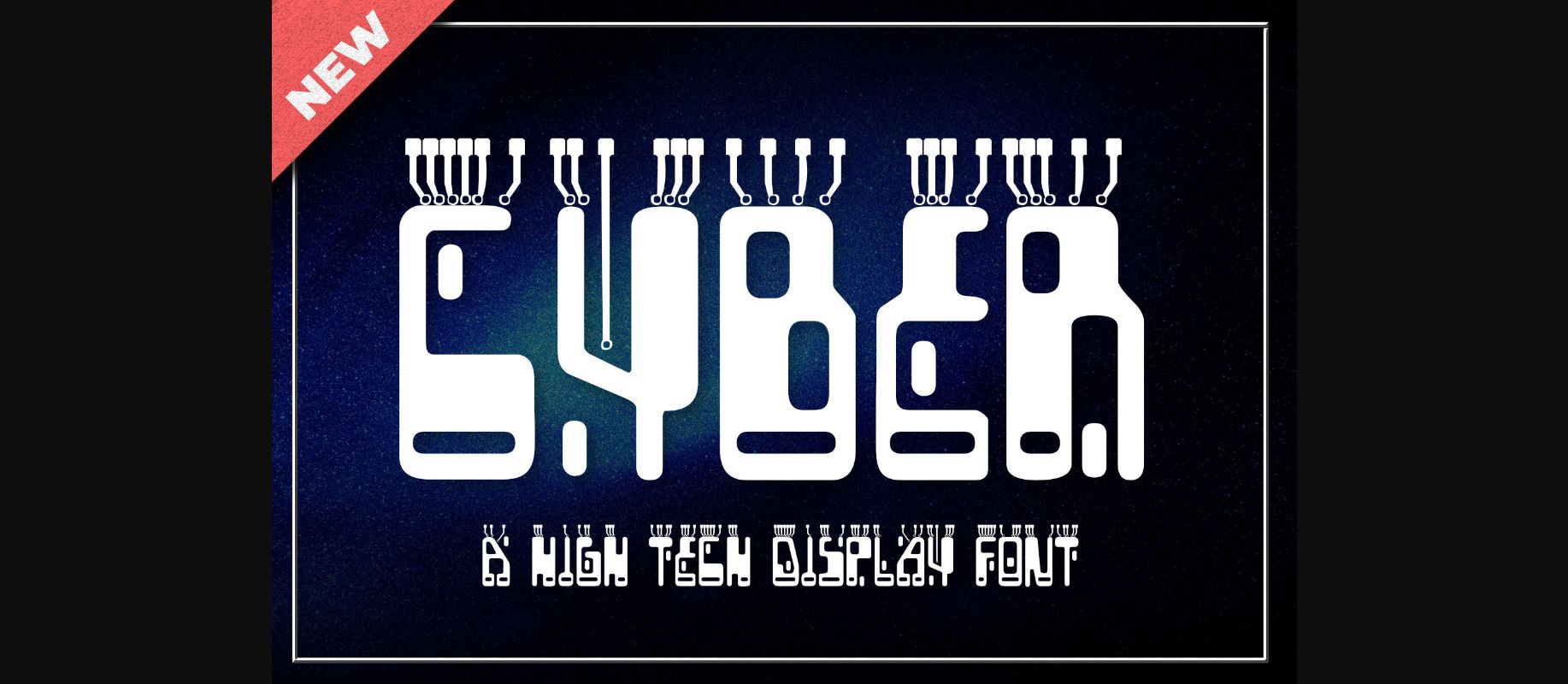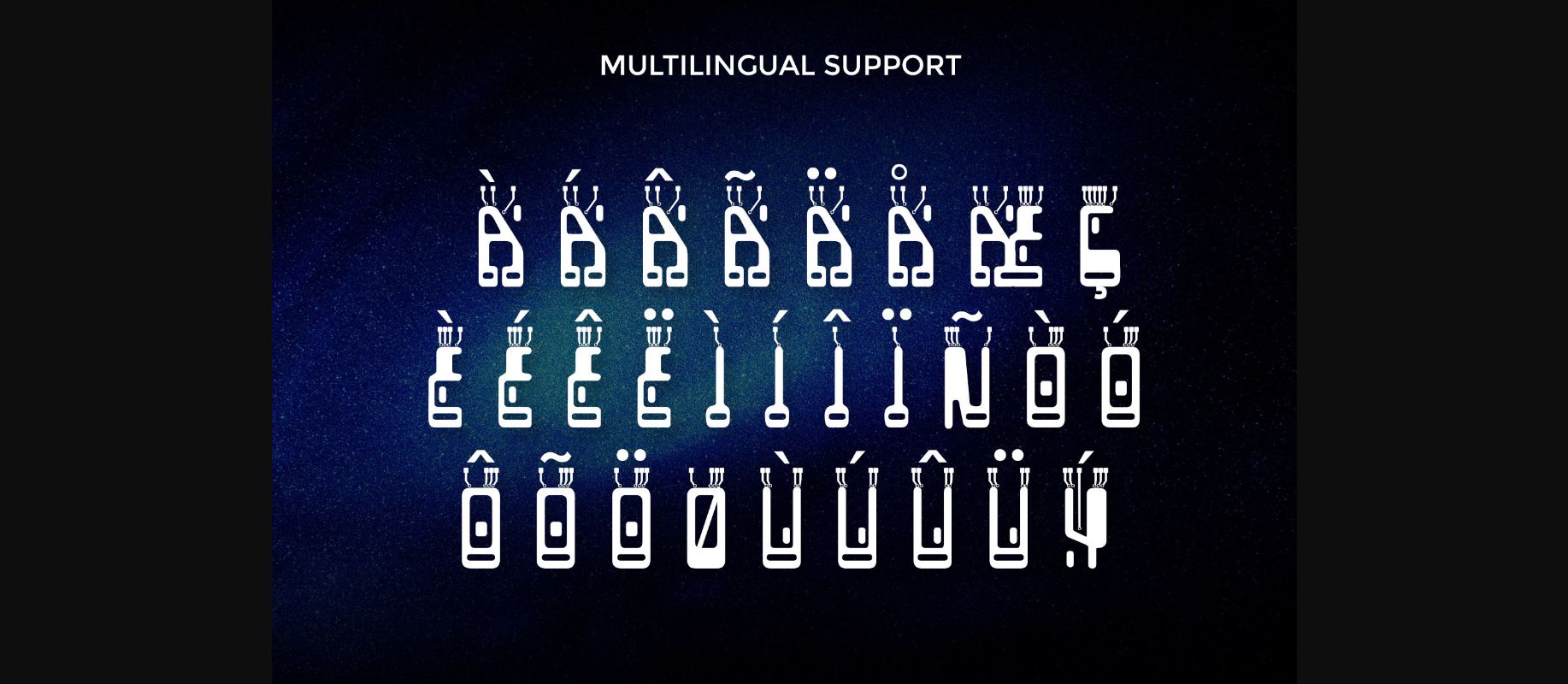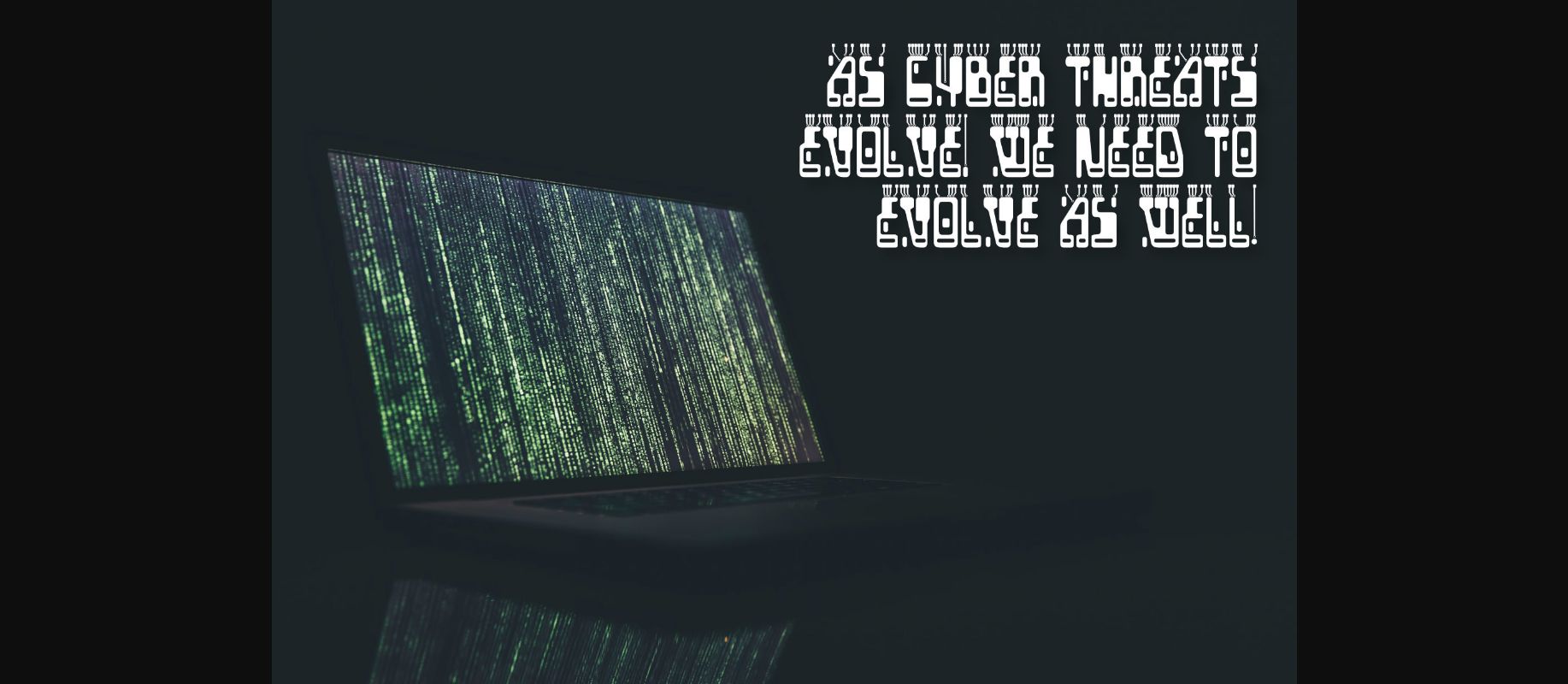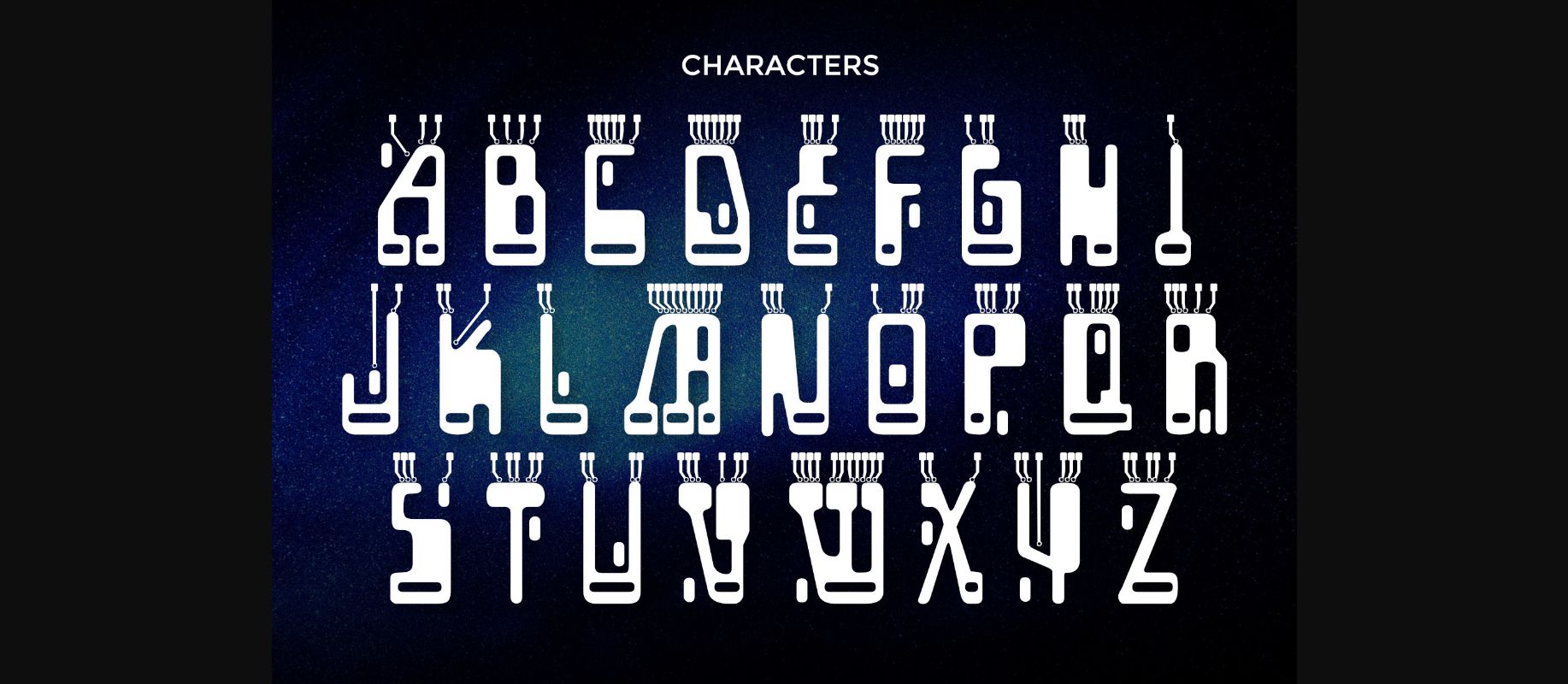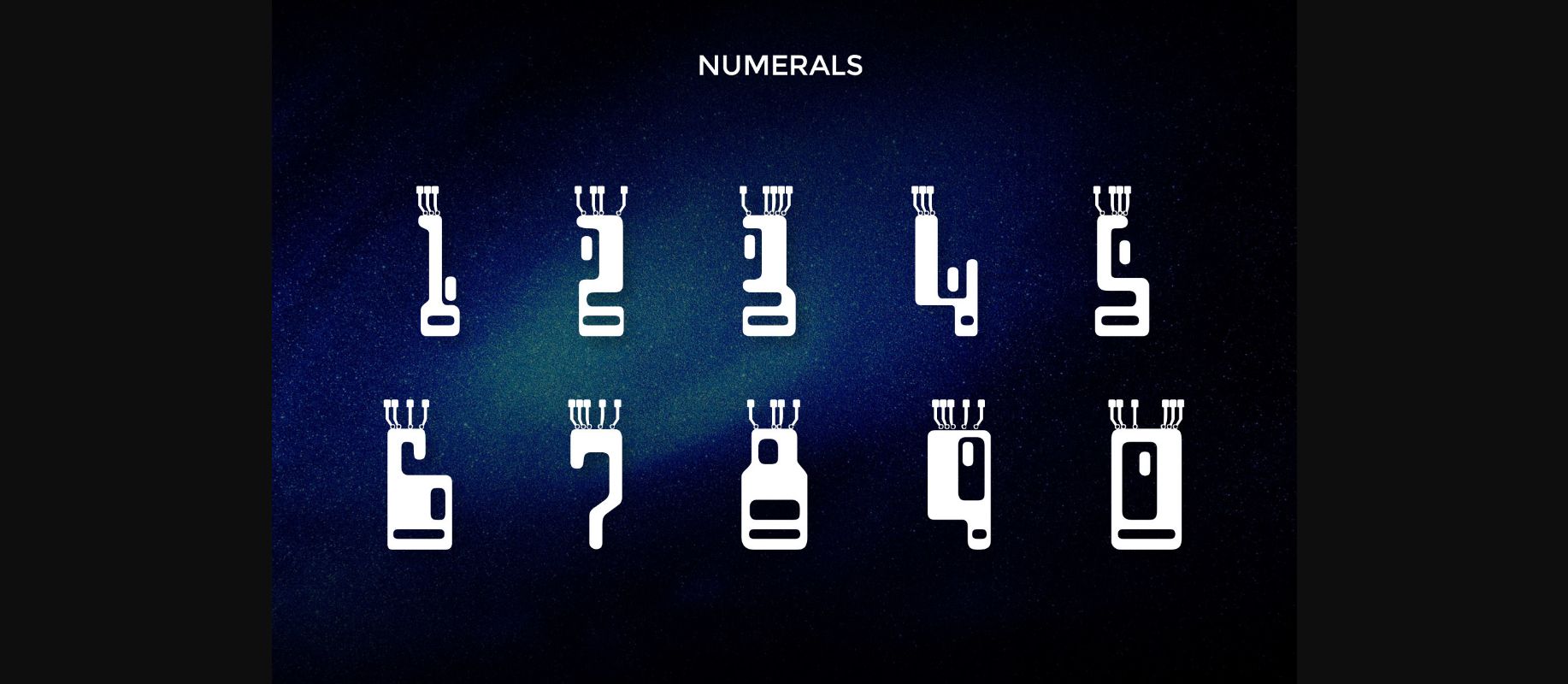
About Cyber Font
Cyber is a cool, techno looking decorative font. Add this uniquely styled font to your web designs, logos or pretty much anything that requires a smart, cool touch.